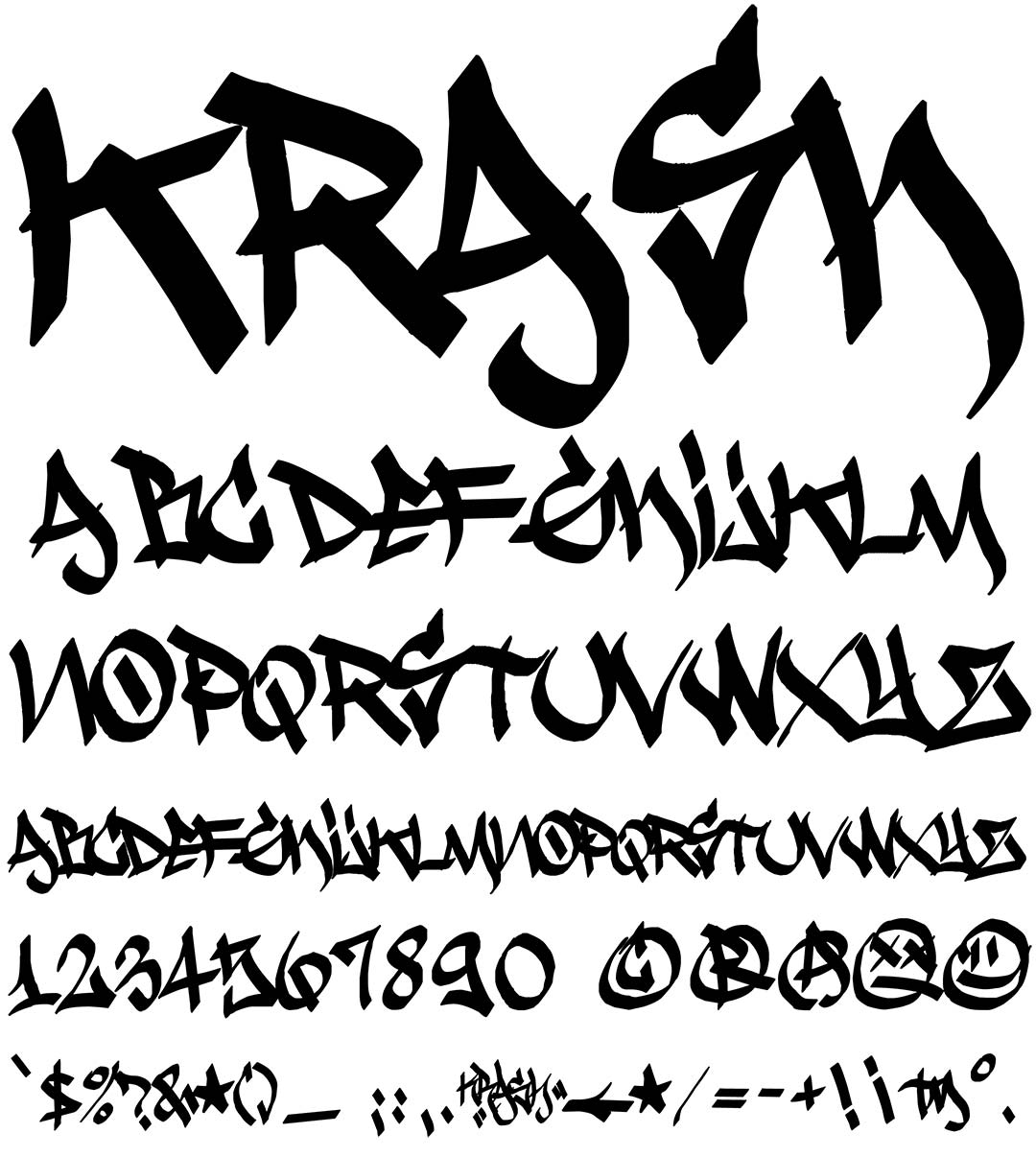
Krash!!
Krash!! Graffiti Alphabet
Krash!! Graffiti Font Family
Another BRK tag font in a chisel tip style. Krash!! has a pretty good character set with one alphabet, numbers, punctuation & symbols. This style is a little broader than BRK\'s Stylin font.